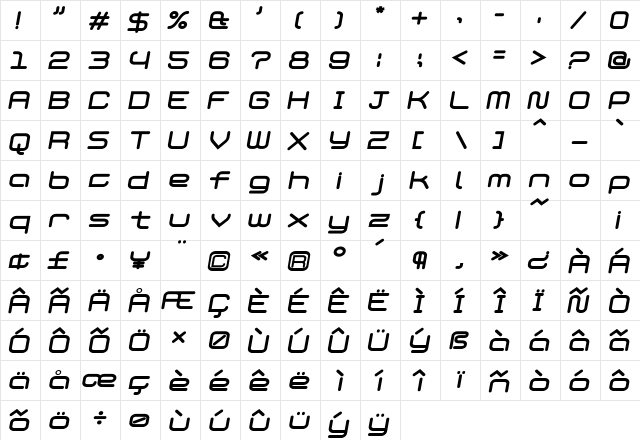
Phat Bold Italic Font Preview
Phat Bold Italic
Design Context for Phat Typeface
Phat is a composed and adaptable typeface that performs quietly and consistently across a wide range of design contexts. The slanted form adds forward momentum and visual energy. Its bold stroke weight gives it real presence on the page.
Pro Tip: Use Phat for emphasis, pull quotes, and subheadings where its slanted energy can add rhythm to the layout.